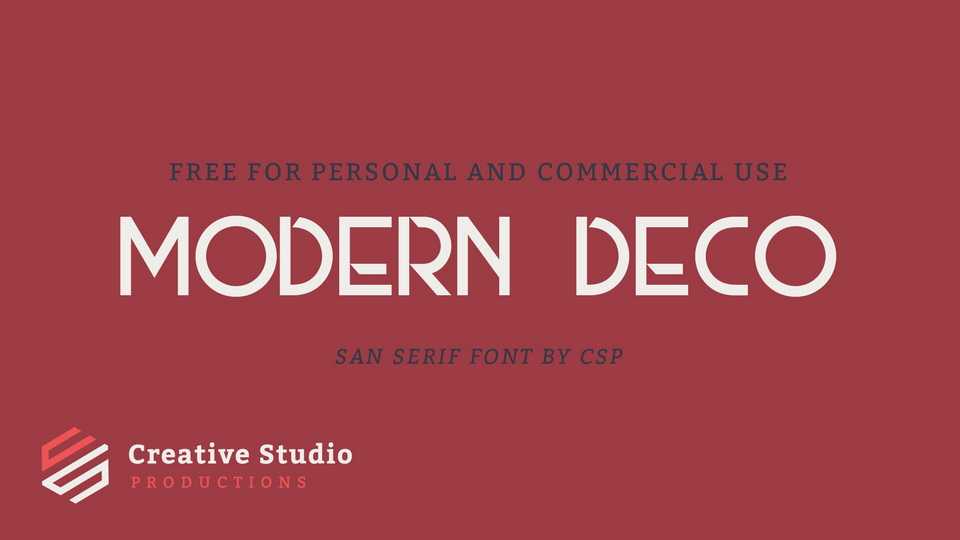
Download Modern Deco font, a geometric sans serif typeface that features an art deco influence. Modern Deco is a versatile sans what works perfect as a display font with a distinctive, elegant look.
Designer: Ben Branum